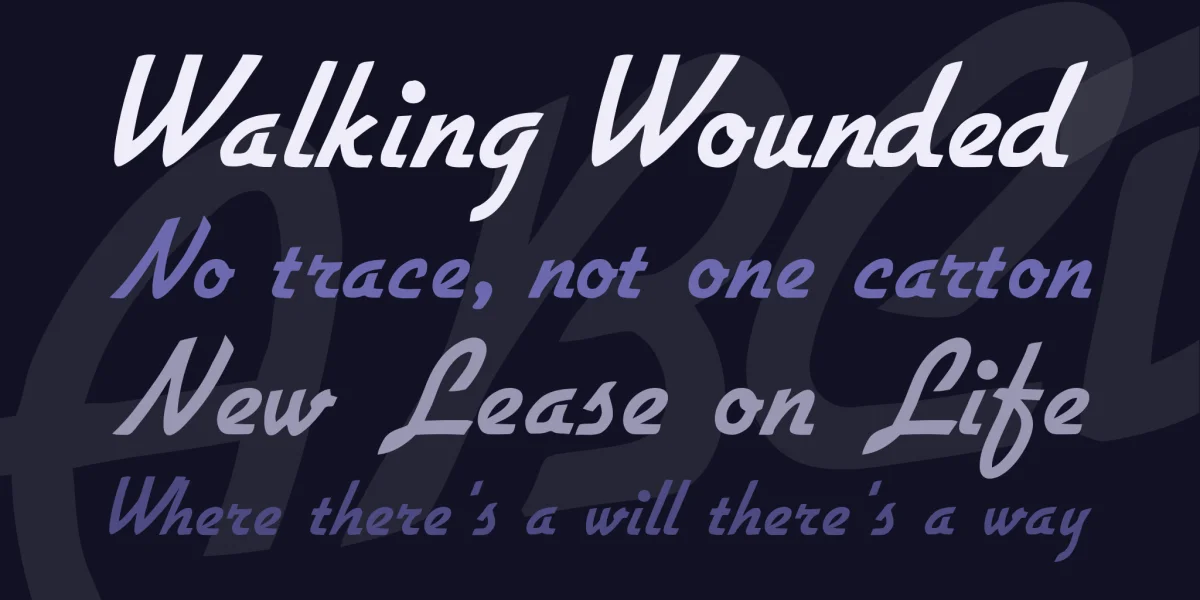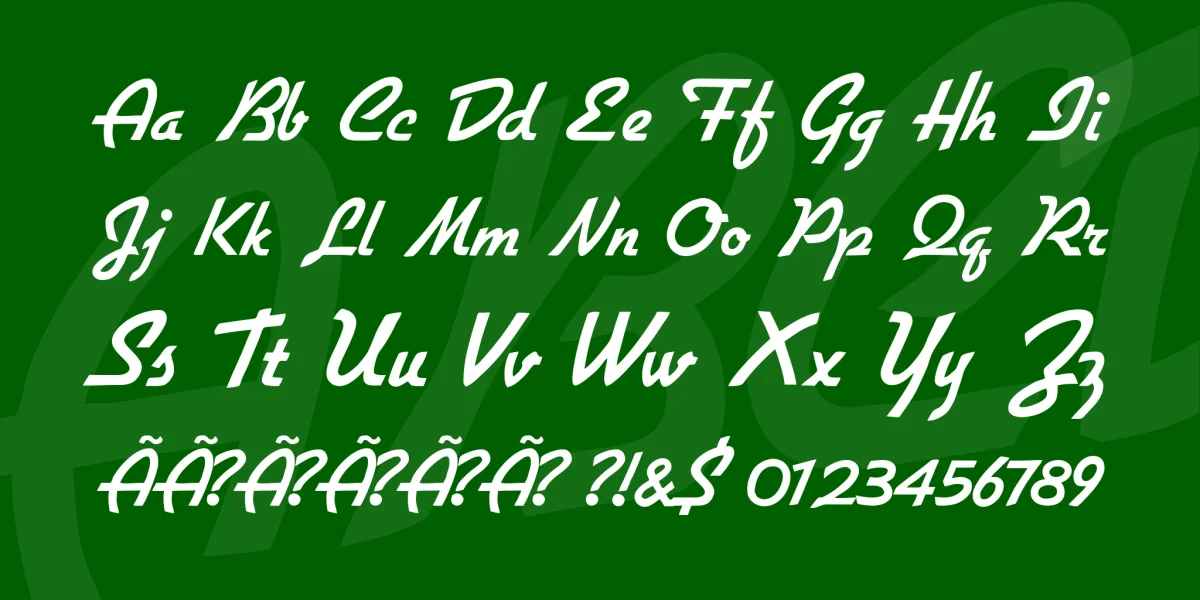
Google Translate: In the 1930's a demand for modern fonts for advertising was created. So some fonts emerged with a rather casual cursive character, but they were so that they could be implemented better than lead sentence executed without associated letters. 1934 seemed so at the Bauer foundry font Flott, which WS Gillies has designed. The font was published in the USA under the name Gillies Gothic, and later also in the writings range from Letraset. At some time in graphic quite popular rub-off letters leaves of which there were then a Shaded- version. Here is my version under the name Flott Flott